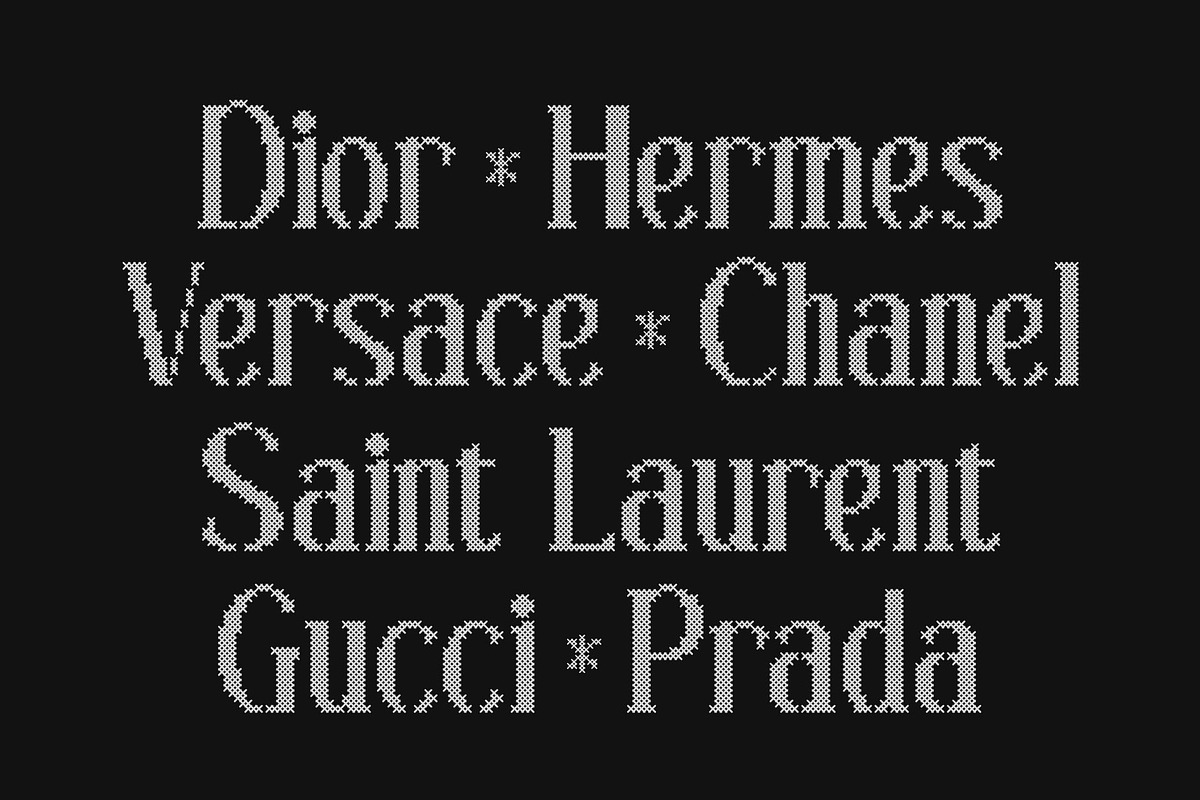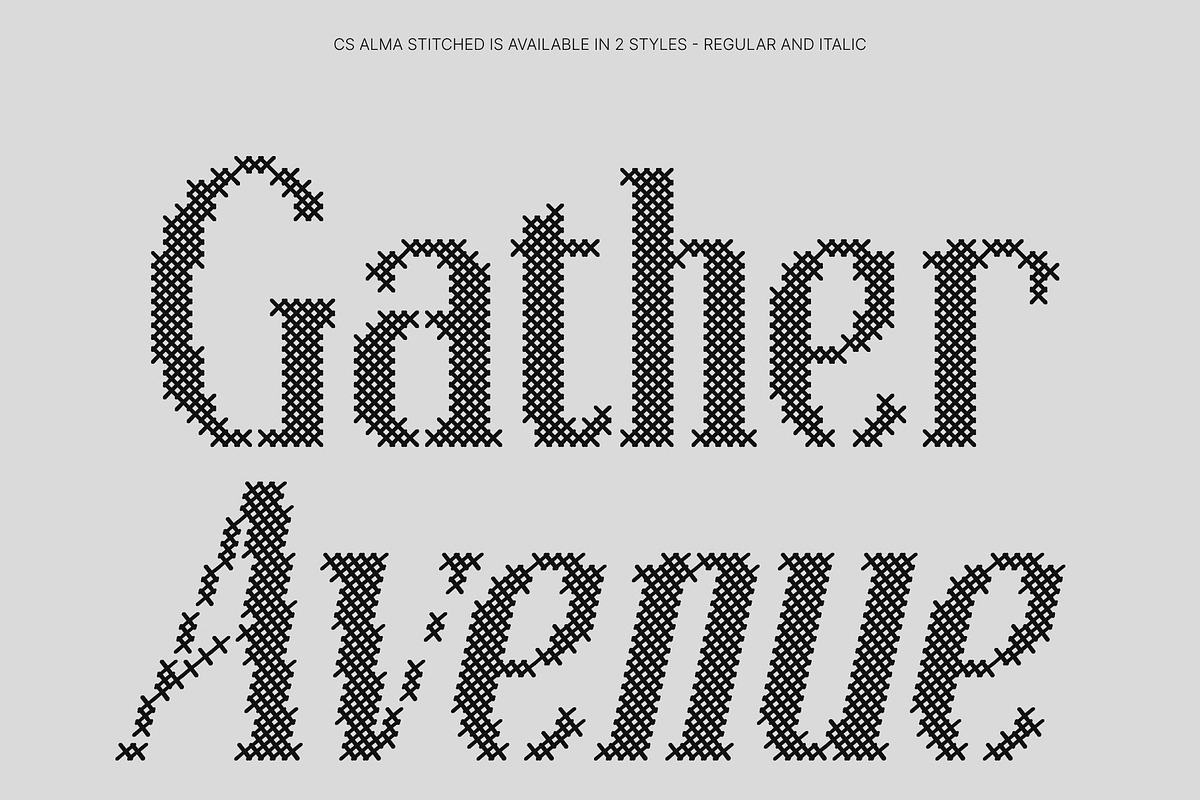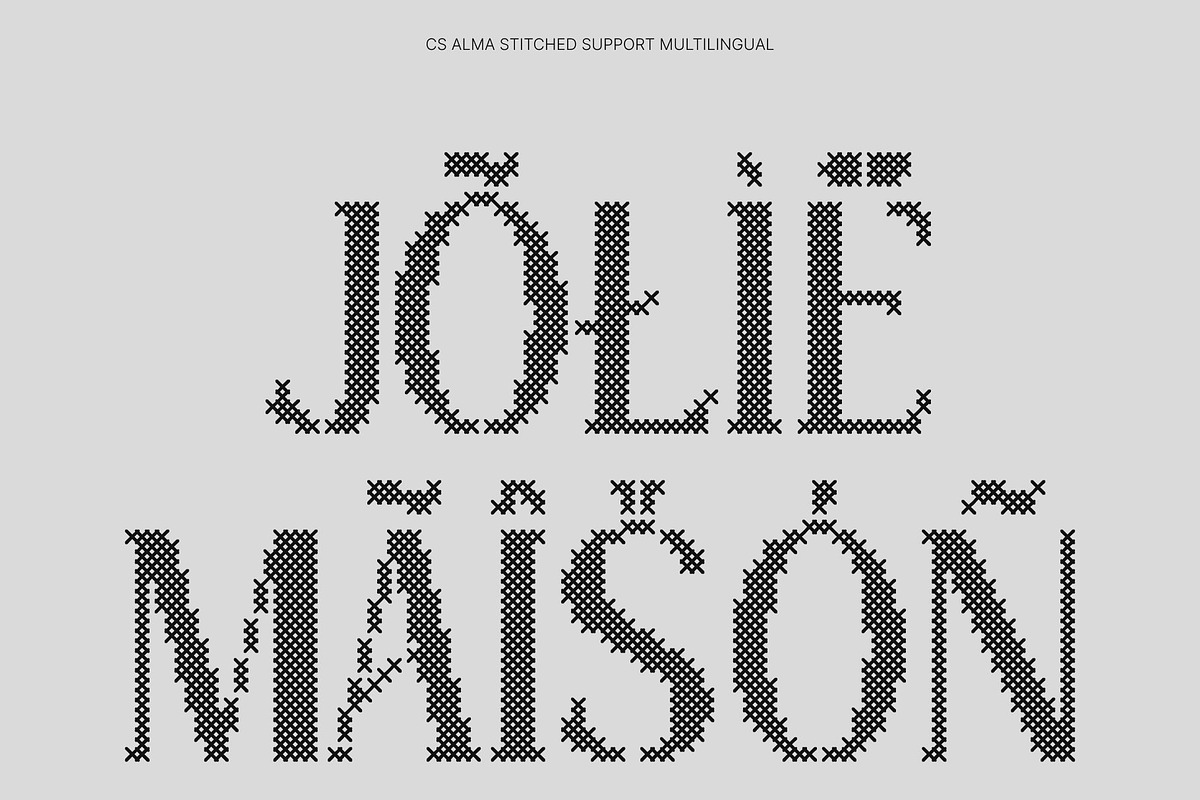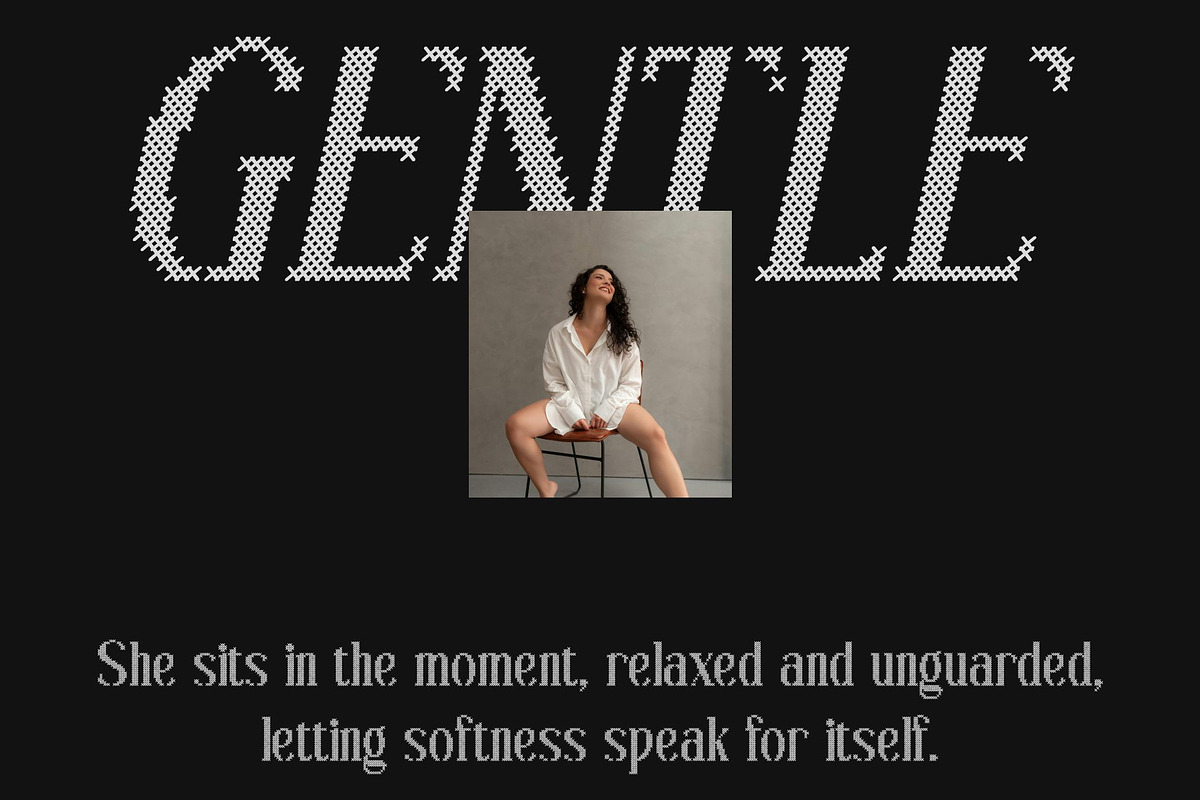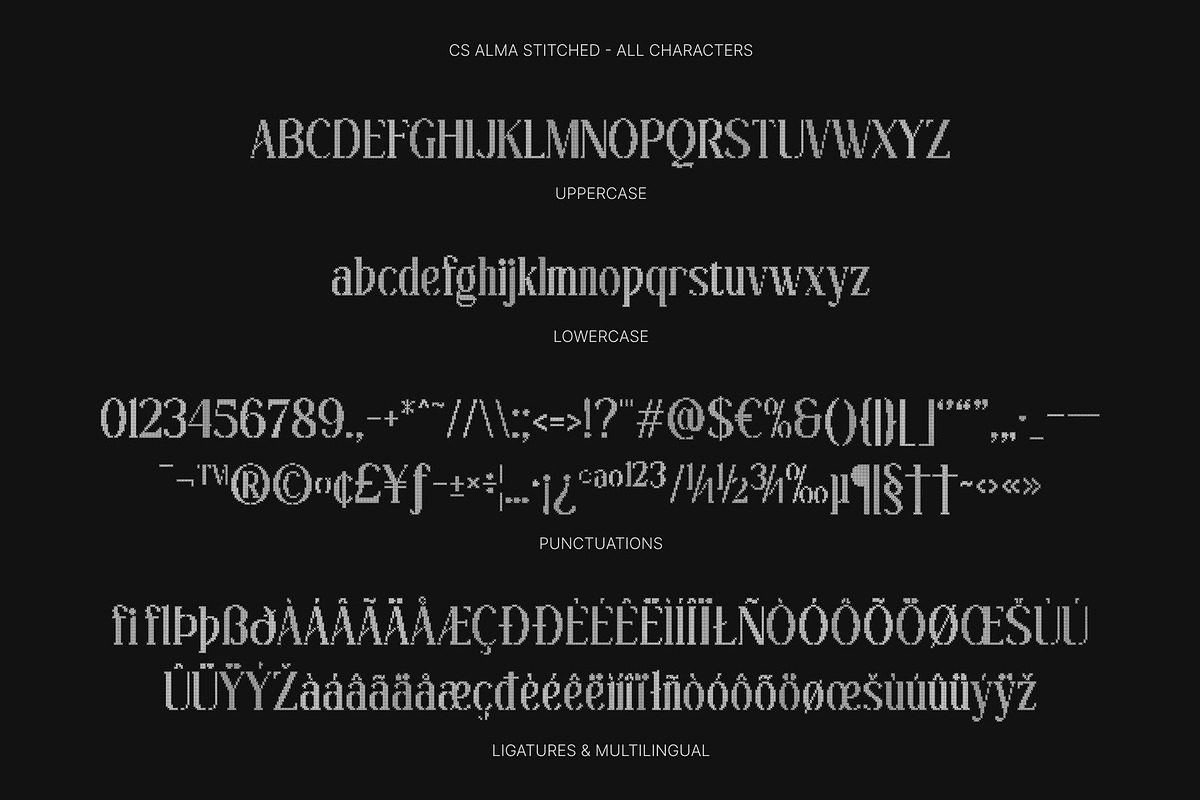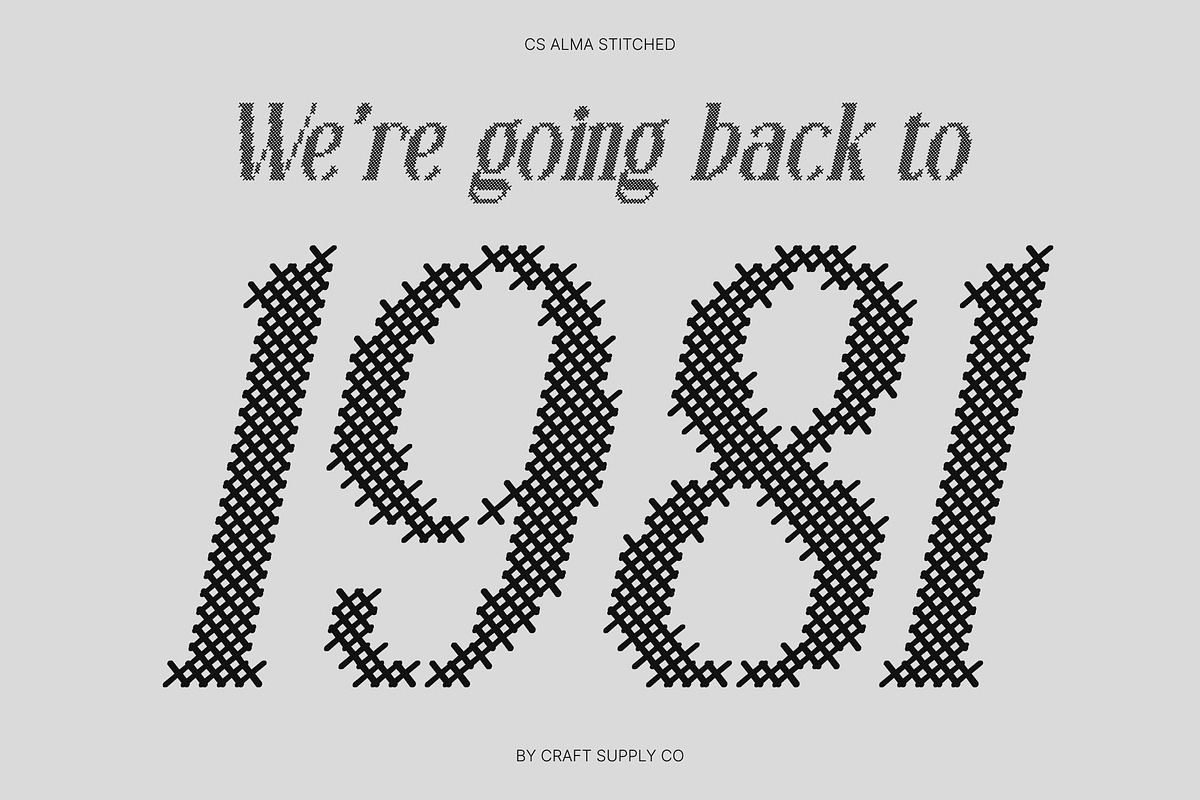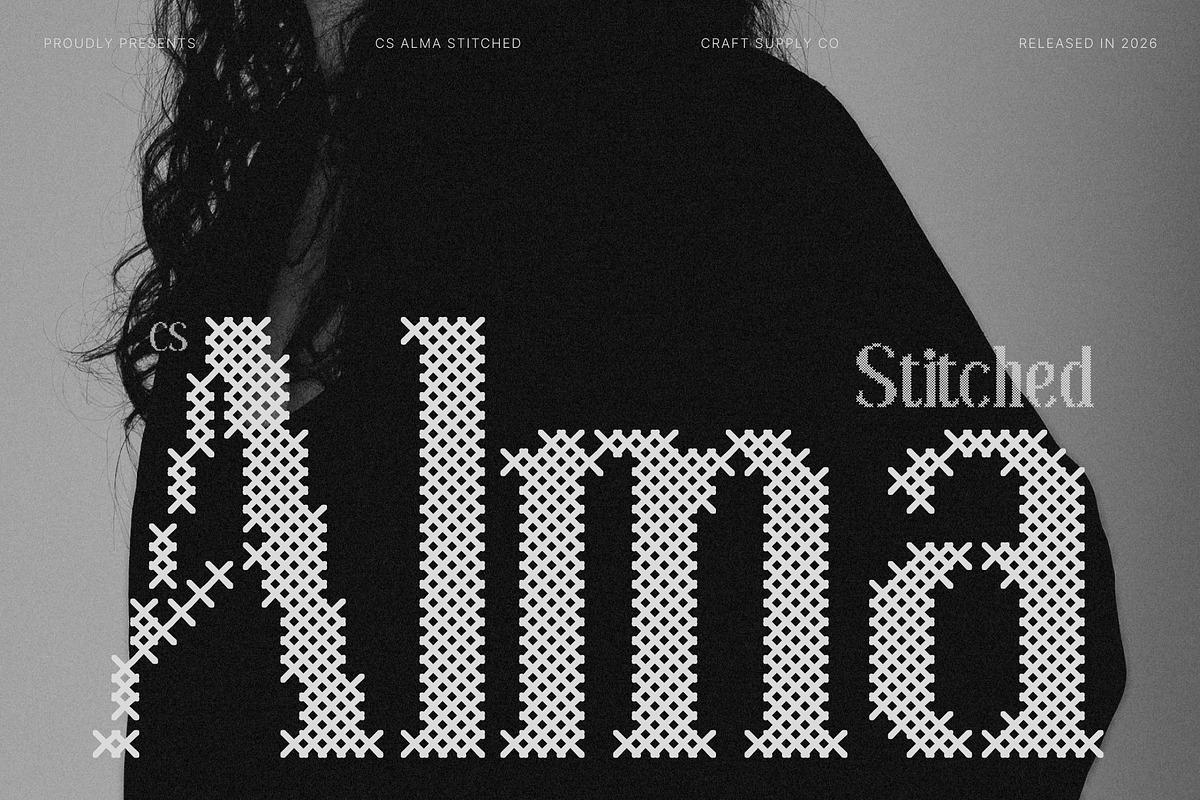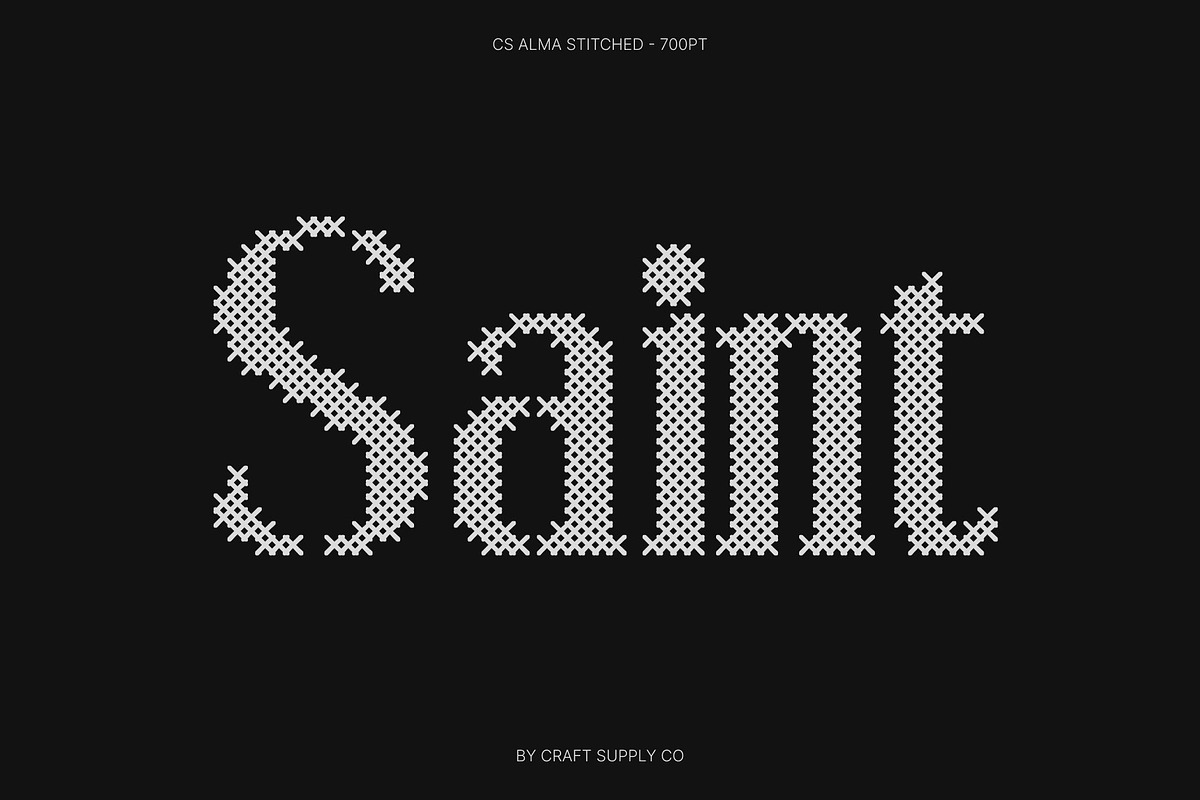
CS Alma Stitched
CS Alma Stitched – Condensed Modern Serif with Contemporary Elegance
Condensed Modern Serif with Handcrafted Refinement This is a condensed modern serif font designed to express elegance through refined proportions and a confident contemporary structure. Its narrow letterforms create a strong vertical rhythm, allowing layouts to feel sophisticated, and visually elevated. Enhanced with a stitched style inspired by thread sewn or embroidered on fabric, this version introduces warmth and tactile personalit.
Long, Slim Serifs with Embossed Stitch Detail The defining feature of this font lies in its long, slim serifs that convey luxury and finesse. These graceful extensions are enriched by a distinctive cross-shaped stitch pattern, creating an embossed and structured texture across each character. The stitched detailing adds depth and a classic, nostalgic, relaxed impression softening the modern precision with a warm, personal touch.
Contemporary Structure with Elegant Presence Blending classic serif elegance with a modern condensed silhouette, achieves a balance between timeless sophistication and fashion-forward style. Its clean yet expressive construction ensures clarity, while the textured stitch effect enhances its uniqueness and visual richness.
Perfect for Luxury, Editorial, and Creative Branding Ideal for luxury branding, fashion campaigns, posters, premium packaging, invitations, and editorial layouts, this font excels in headlines and refined typographic compositions. It also adapts beautifully to craft-inspired and creative projects that seek a distinctive textured aesthetic. With its fusion of modern elegance and handcrafted stitched charm, delivers a graceful, stylish, and memorable visual identity.